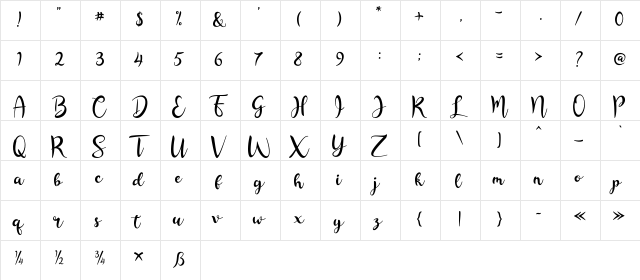
Rashida Script Reguler
Design Context for Rashida Script Typeface
Rashida Script flows with the natural rhythm of handwritten lettering, making it ideal for designs that call for warmth and personal expression.
Font Pairing: Combine Rashida Script with a simple geometric sans for maximum contrast — the tension between flowing curves and clean structure is a classic typographic pairing.
Pro Tip: Pair Rashida Script with a clean sans-serif for supporting text. The contrast between fluid script and geometric structure creates an elegant typographic hierarchy.